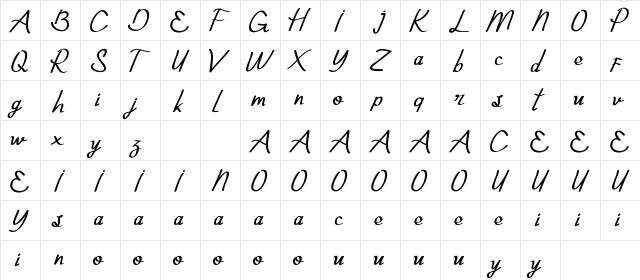
Exninja Demo Caligraphy Regular
| Foundry | Edric Studio |
| Designer | Muhammad Deyan S & Renata Insan C |
Design Context for Exninja Demo Caligraphy Typeface
Exninja Demo Caligraphy is a composed and adaptable typeface that performs quietly and consistently across a wide range of design contexts.